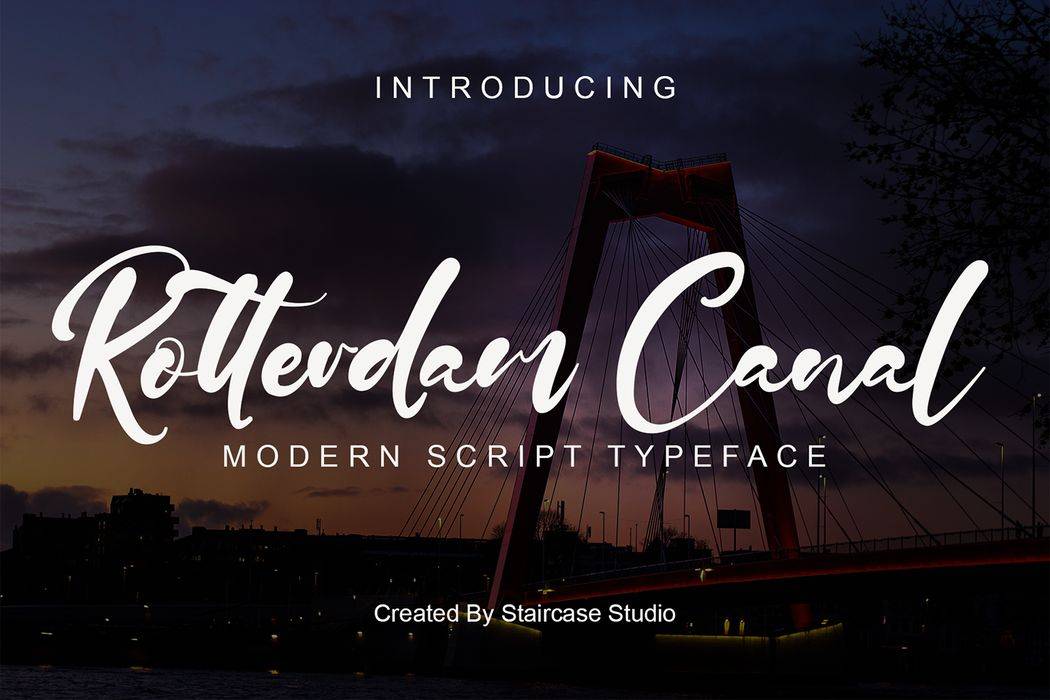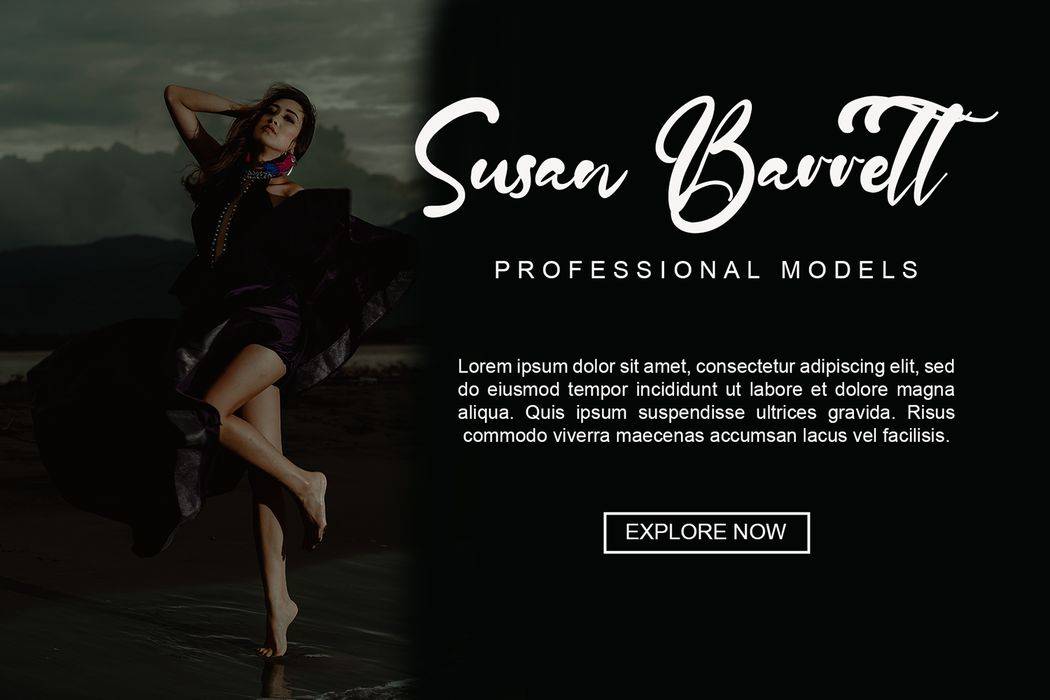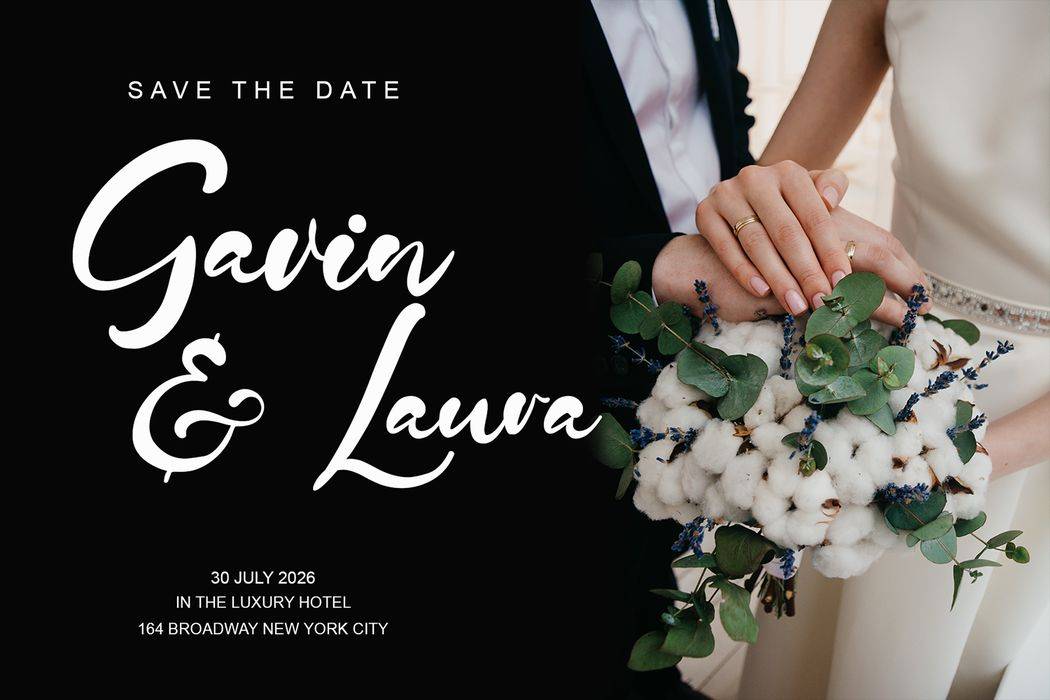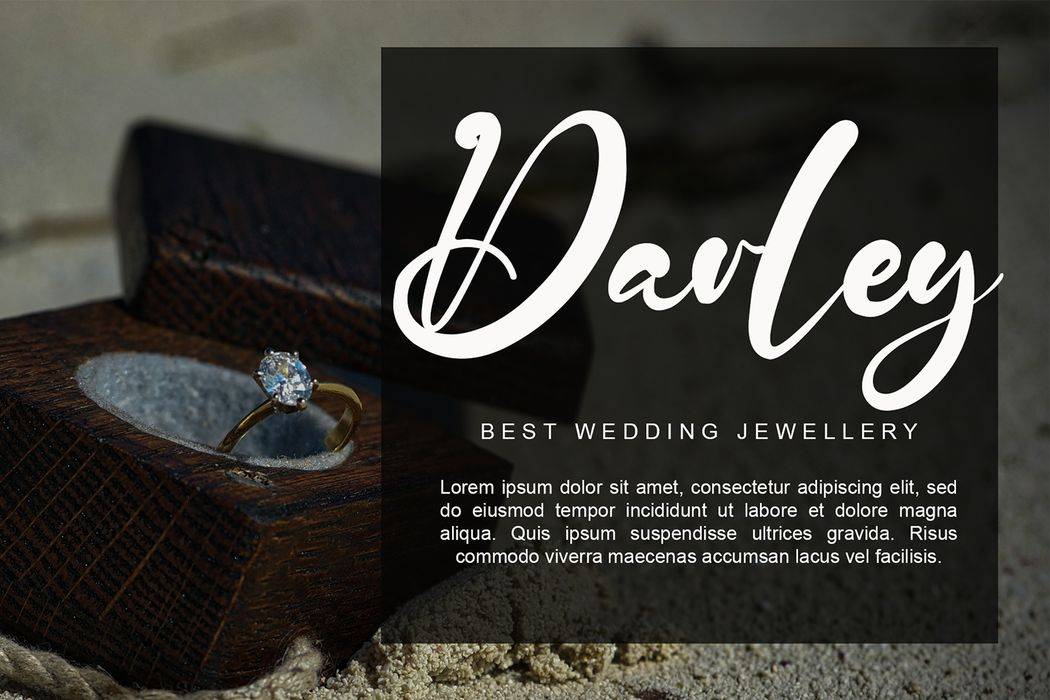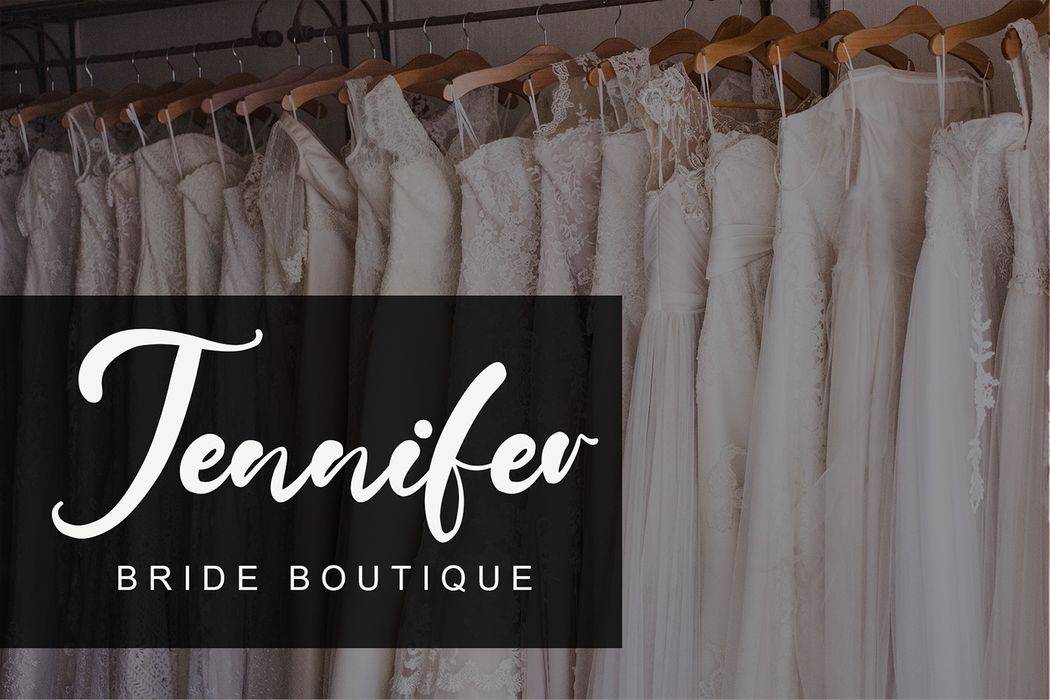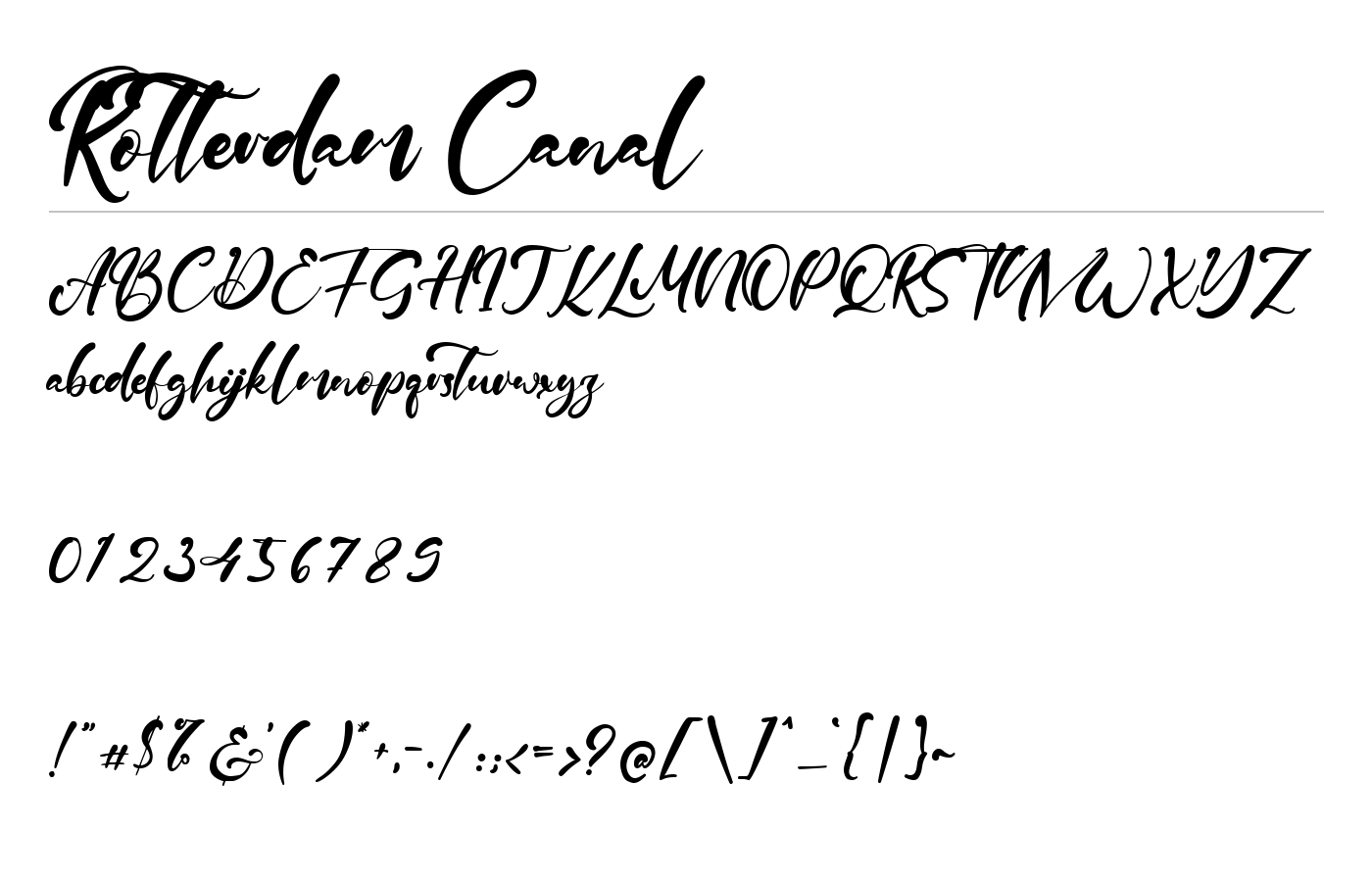
Rotterdam Canal is a stylish script font with a lively, handwritten feel, featuring smooth, flowing strokes and elegant swashes that add a personal touch. Its medium weight and moderate contrast give it a spirited yet readable appearance, making it ideal for creative branding, invitations, and expressive headlines where a warm, charming vibe is desired. This font works beautifully in designs that seek to convey friendliness and sophistication with a natural, artistic flair.
Rotterdam Canal Font
About Rotterdam Canal Font
| Font family | Rotterdam Canal Font |
| Designer | Staircase Studio |